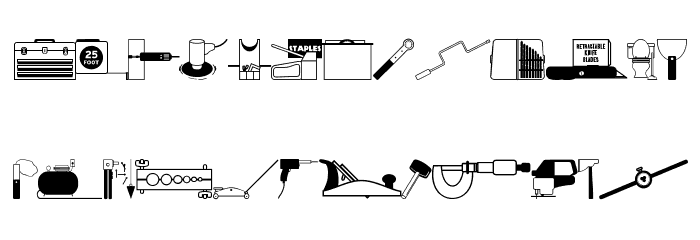
Tools Rule! JL Font
Tools Rule! JL Description
This is not a traditional font but rather a collection of tool-themed icons and symbols. Each character is represented by a different tool or mechanical object, creating a unique and thematic visual style. The icons are detailed and illustrative, making them suitable for projects that require a mechanical or industrial aesthetic. The set includes a variety of tools such as wrenches, drills, and other equipment, each crafted with attention to detail. This collection is ideal for creative projects that aim to incorporate a sense of craftsmanship or engineering.
A collection of tool-themed icons representing each character from Dingbats fonts.
- Proposed Projects: Ideal for industrial-themed designs, educational materials about tools, or creative projects requiring a mechanical aesthetic.
- Use Case: Logos, Posters, Educational Materials